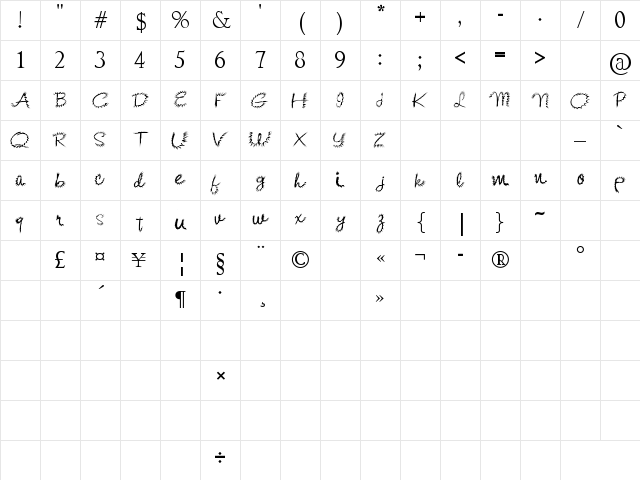
Kishore-Distort Regular
Design Context for Kishore-Distort
Kishore-Distort is a composed and adaptable typeface that performs quietly and consistently across a wide range of design contexts.
Pro Tip: Use Kishore-Distort in both headline and body roles to test its range before committing to a single application.